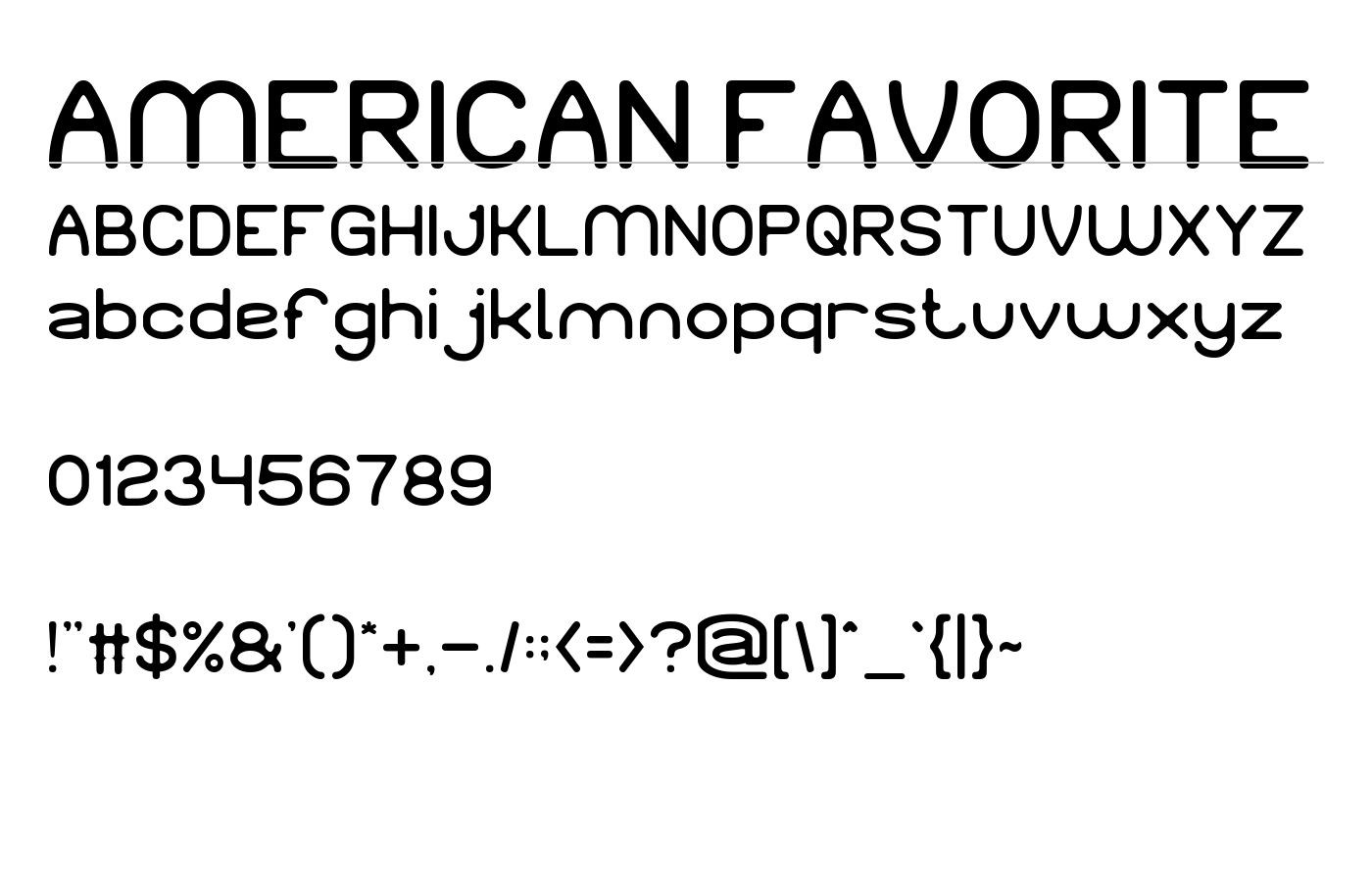
American Favorite is a playful and modern sans serif font characterized by its rounded strokes, medium weight, and slightly condensed letterforms. It has a casual, friendly feel with unique quirks in characters like the lowercase "a" and "g," making it ideal for designs that want to convey approachability and charm. This font works well in branding, packaging, and headlines where a contemporary yet inviting tone is desired.
AMERICAN FAVORITE Font